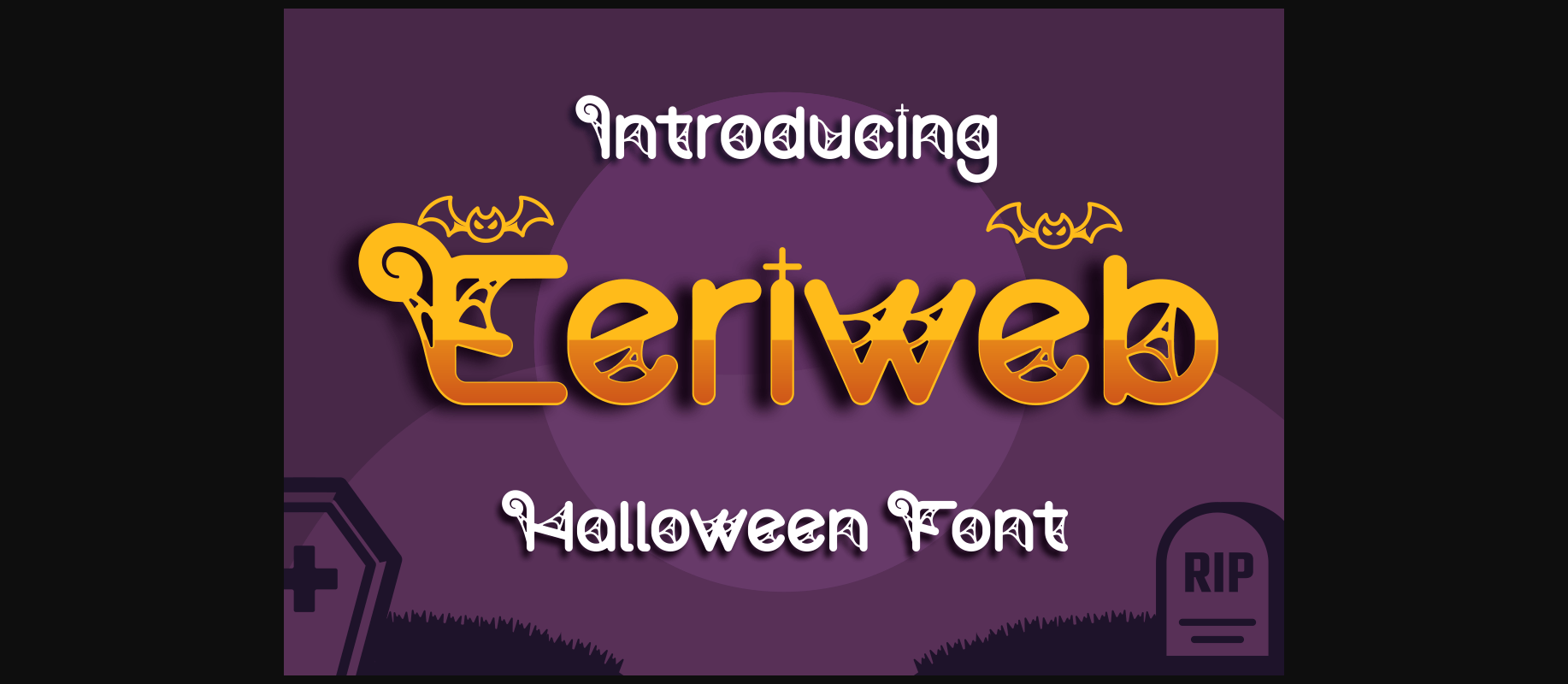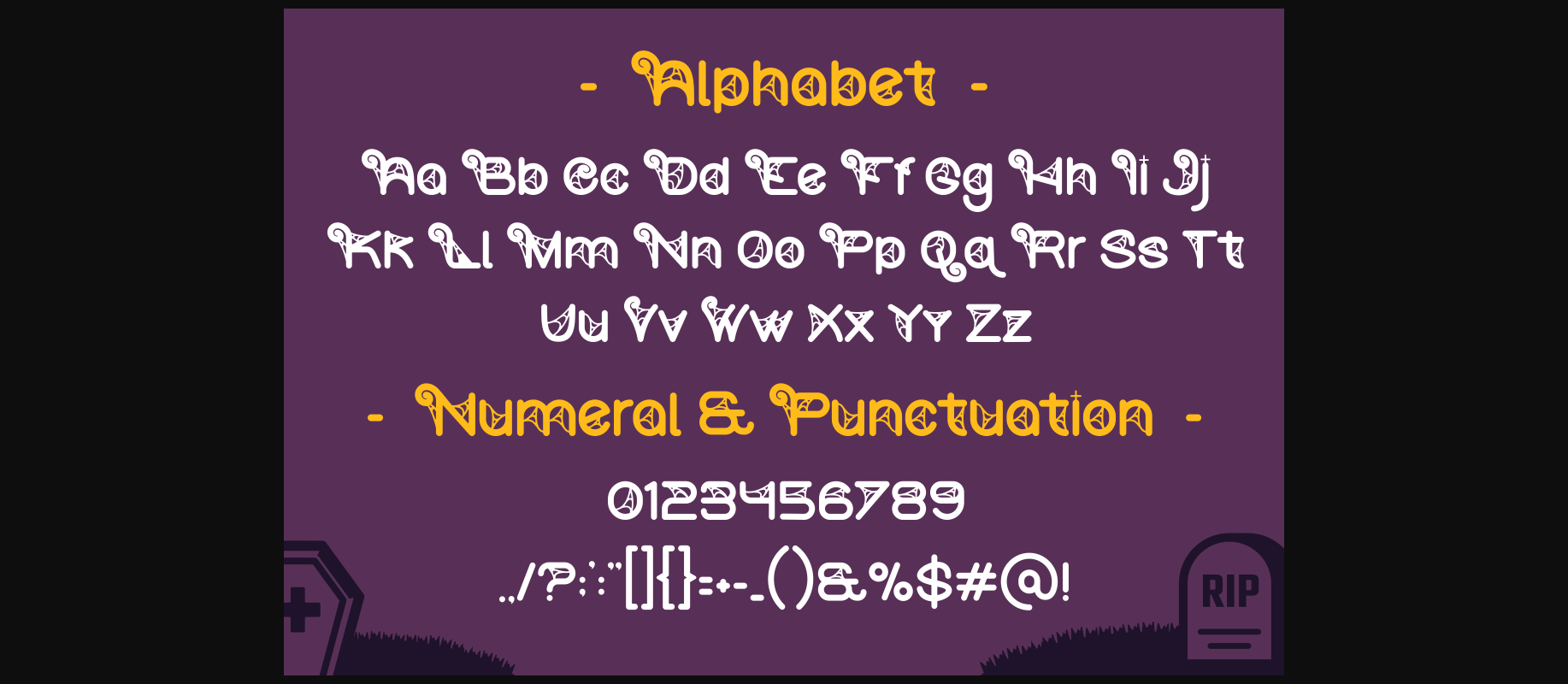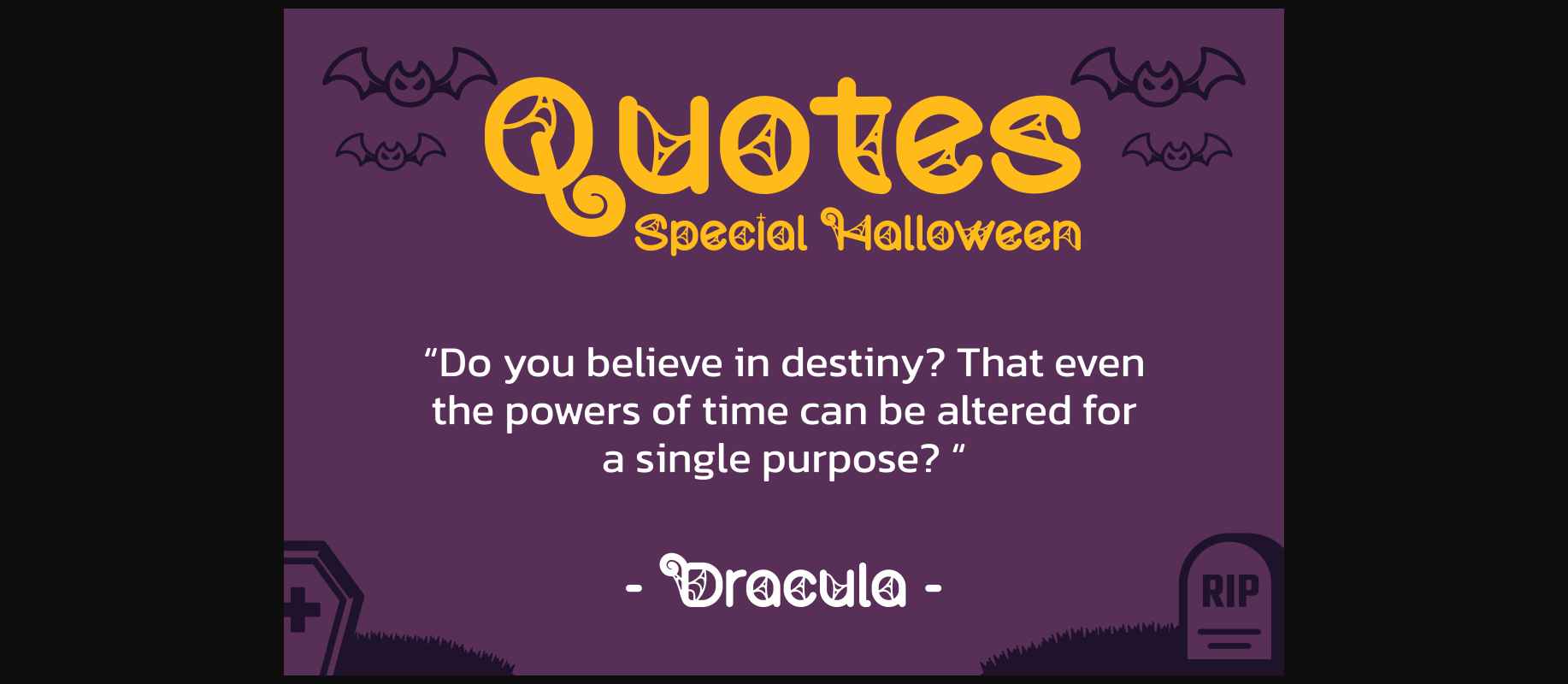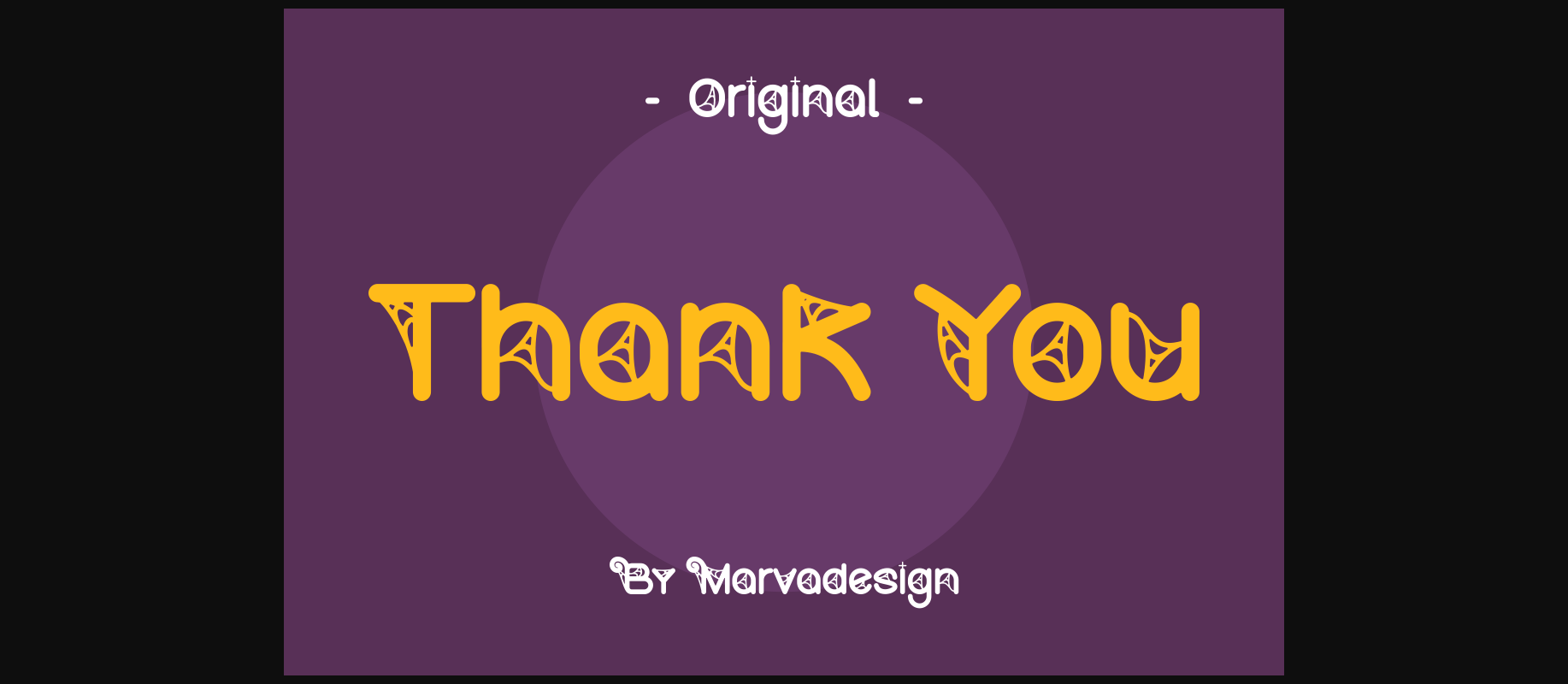
Eeriweb Font
About Eeriweb Font
Eeriweb is a spooky font perfect for Halloween. Use it on banners, posters, invitations, or whatever your crafting needs may demand.